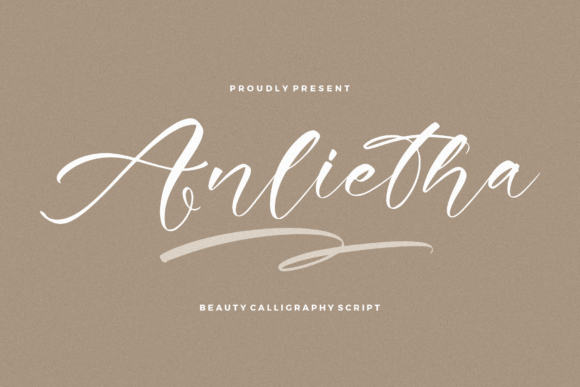
The Art of Elegant Expression: Discovering the Beauty of Anlietha Font
Have you ever stumbled upon a beautifully crafted quote on a vintage-inspired poster, or a charming logo on a boutique’s product packaging, and felt a sudden surge of inspiration? That’s exactly what happened to me the first time I laid eyes on the Anlietha Font, a stunning calligraphy script from Glorytype Studio.
This gorgeous font is designed to add a touch of elegance and sophistication to any project, whether it’s a logo, branding material, or even a simple greeting card. With its versatility and beautiful script style, Anlietha Font is a valuable asset for designers looking to add a personal touch to their work.
- Unique Characteristics: Elegant, cursive script with subtle flair and connections between letters
Anlietha Font Review
Overall, I found Anlietha Font to be a solid choice for various design projects. ✨ Its unique blend of vintage and modern elements makes it an excellent option for creating visually appealing and eye-catching designs. The font is highly legible, even at smaller font sizes, making it suitable for body text as well as headings.
One of the standout features of Anlietha Font is its high versatility. ✨ It can be used in a wide range of applications, from logos and branding materials to digital products and print media. The font’s flexibility is also reflected in its excellent performance across different devices and screen resolutions.
However, there are some limitations to consider: ⚠️ the font may not be the best choice for projects that require a high degree of precision or technical readability. Additionally, some users may find the font’s unique style too ornate or distracting, depending on their personal design preferences.
- Highly legible and versatile font
- Unique blend of vintage and modern elements
- Excellent performance across devices and screen resolutions
- May not be suitable for projects requiring precision or technical readability
- Some users may find the font’s style too ornate or distracting
Tips: Use Anlietha Font for headings to add a touch of elegance. Experiment with different font sizes and colors to create visual hierarchy.
Tips: Use Anlietha Font for typography-based designs, such as posters or brochures. Experiment with layer styles and effects to add depth and interest.
Tips: Use Anlietha Font for presentations or reports to add a touch of sophistication. Experiment with different font combinations to create visual interest.
Anlietha Font is ideal for:
- Typography-based designs, such as posters and brochures
Remember to use Anlietha Font consistently throughout your design to create a cohesive and polished look.